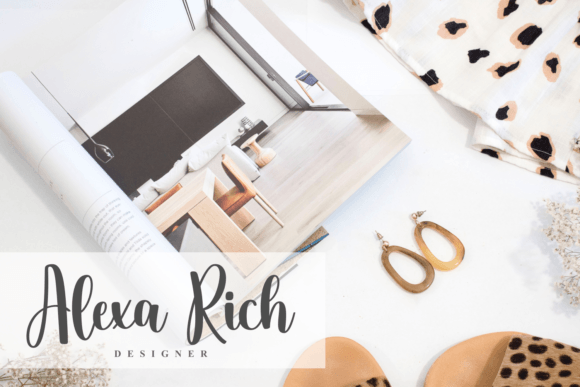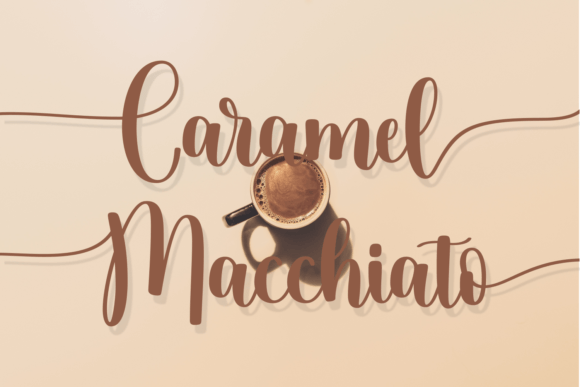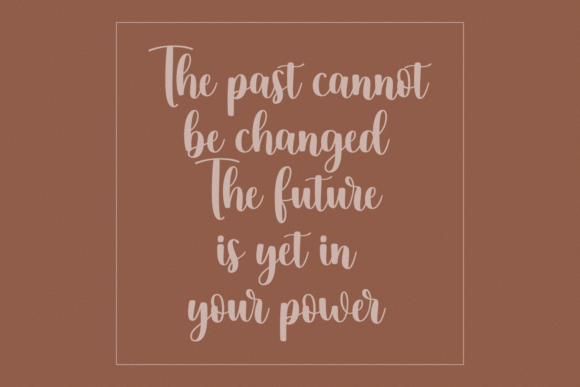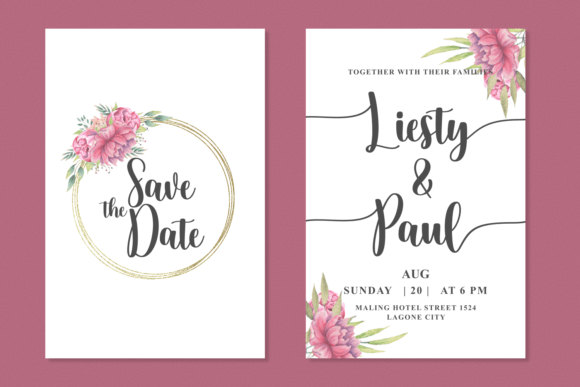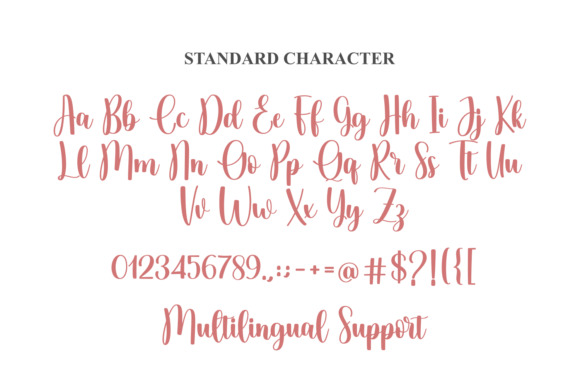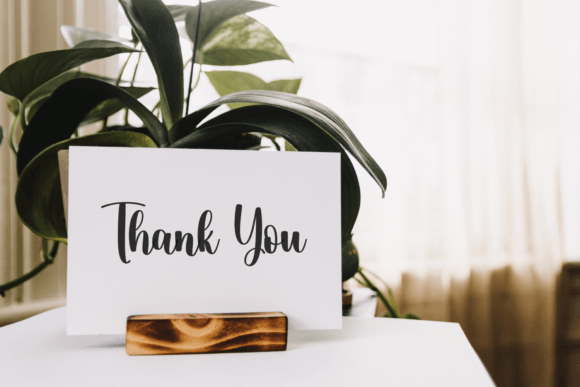
Feronicha Font: Elevate Your Designs with a Curly Handwritten Style
Are you looking for a font that can add a touch of elegance and sophistication to your designs? Look no further than Feronicha, a beautiful curly handwritten font that’s perfect for a wide range of creative projects. In this article, we’ll explore the features and benefits of Feronicha, and show you how it can help take your designs to the next level.
What is Feronicha Font?
Feronicha is a stunning curly handwritten font that’s designed to add a personal touch to your designs. With its flowing curves and elegant lines, Feronicha is perfect for creating beautiful logos, labels, branding materials, invitations, websites, quotes, and more. Whether you’re a designer, crafty DIY enthusiast, or simply someone who loves to create, Feronicha is the perfect addition to your font collection.
Key Features of Feronicha Font
So what makes Feronicha so special? Here are just a few of the key features that set it apart:
- Curly Handwritten Style: Feronicha’s curly handwritten style is perfect for adding a touch of elegance and sophistication to your designs.
- PUA Encoded: Feronicha is PUA encoded, which means you can access all of the glyphs and swashes with ease. This makes it simple to customize your designs and add your own personal touch.
- Wide Range of Uses: Feronicha is versatile enough to be used in a wide range of creative projects, from logos and branding to invitations and websites.
Benefits of Using Feronicha Font
So why should you choose Feronicha for your designs? Here are just a few of the benefits of using this beautiful font:
- Instantly Elevate Your Designs: With Feronicha, you can instantly elevate your designs and make them stand out from the crowd.
- Add a Personal Touch: Feronicha’s curly handwritten style adds a personal touch to your designs, making them feel more approachable and engaging.
- Save Time and Effort: With Feronicha’s PUA encoding, you can access all of the glyphs and swashes with ease, saving you time and effort in the design process.
Who is Feronicha Font for?
Feronicha is perfect for a wide range of designers and crafters, including:
- Graphic Designers: Graphic designers will love Feronicha’s elegant and sophisticated style, perfect for creating beautiful logos and branding materials.
- DIY Enthusiasts: DIY enthusiasts will love Feronicha’s ease of use and versatility, perfect for creating handmade cards, invitations, and more.
- Web Designers: Web designers will love Feronicha’s ability to add a personal touch to websites and digital projects.